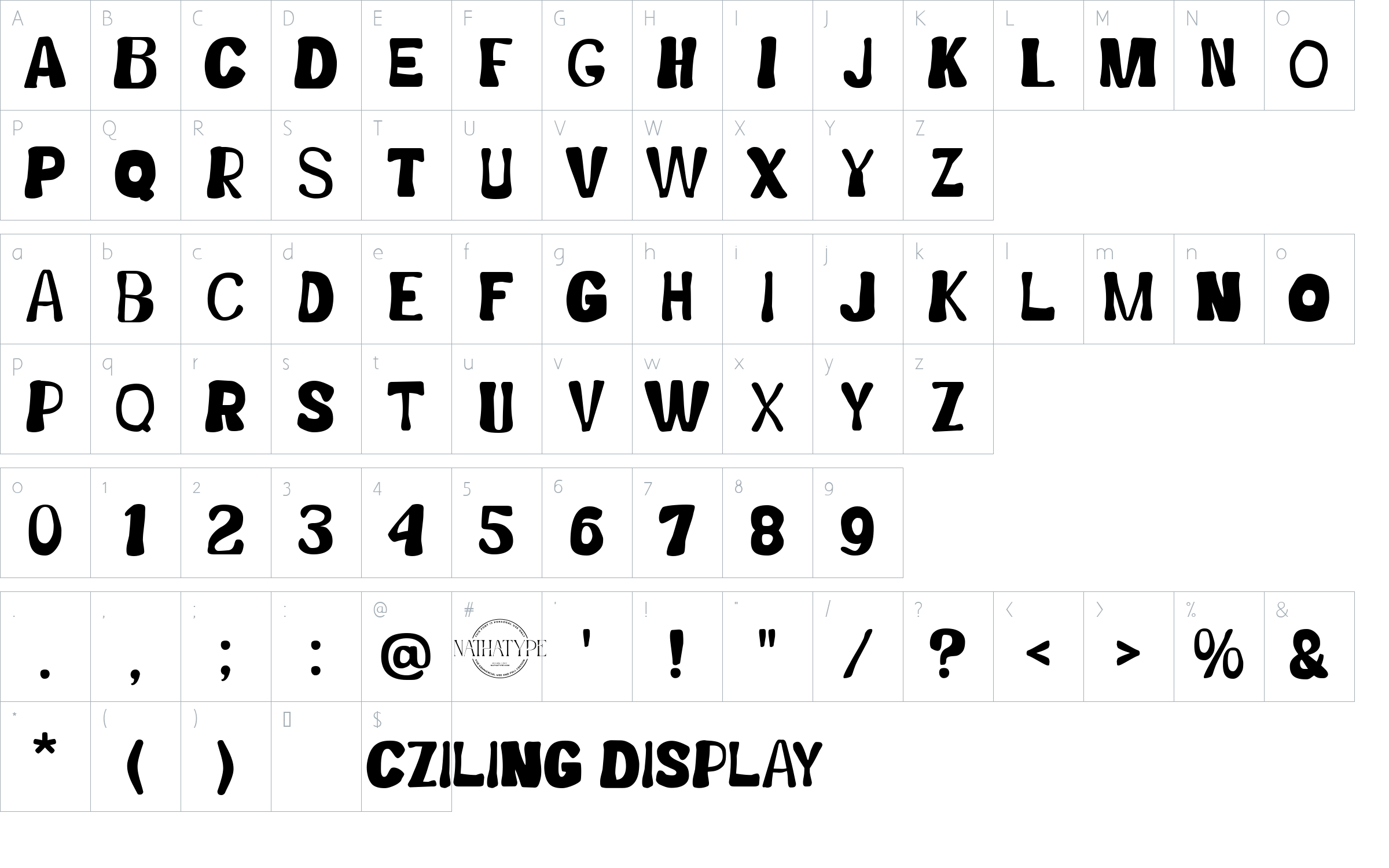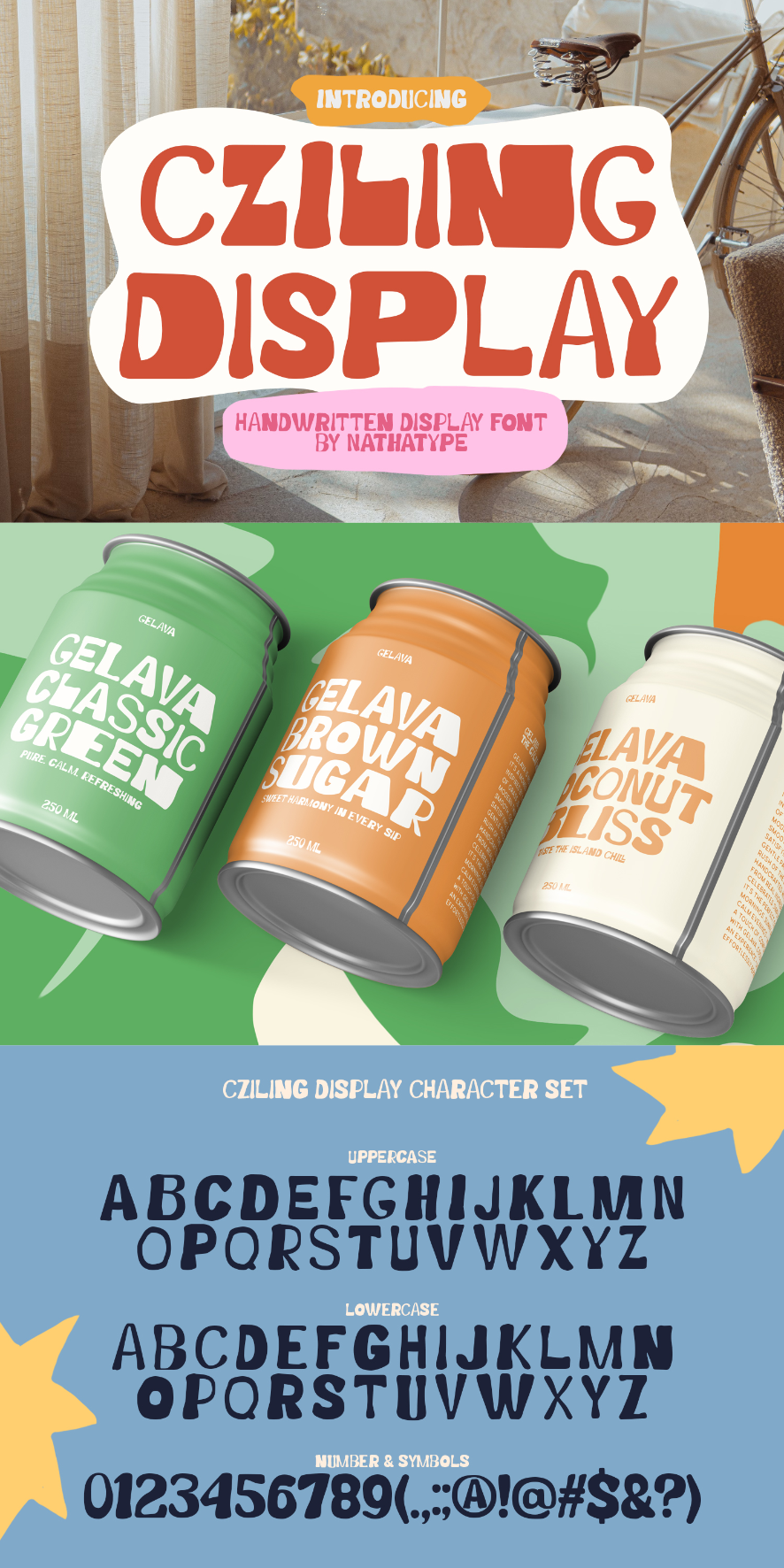
Cziling Display Font
About Cziling Display
Cziling Display is a handwritten display font that captures the charm of imperfection of handcrafted design. Created entirely in capital letters, this font features rounded. With its playful uneven strokes and friendly curves, Cziling Display brings life and authenticity to any project. The combination of soft edges and irregular thickness creates a dynamic rhythm that draws the eye. In addition, enjoy the features here.
Cziling Display fits in branding, quotes, name cards, apparels, logos, posters, and many more designs. Find out more ways to use this font by taking a look at the font preview.